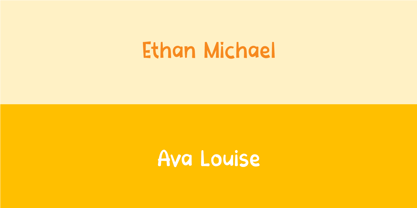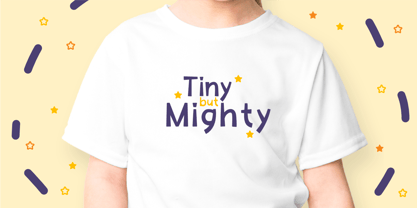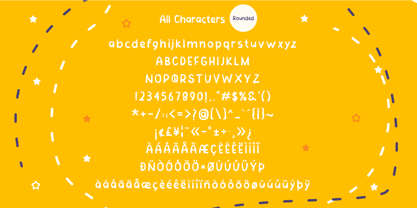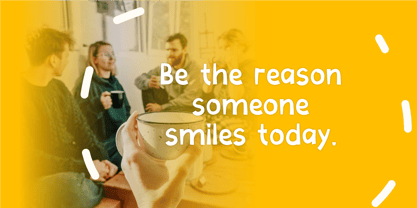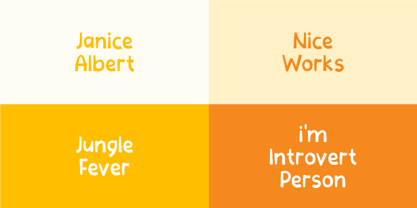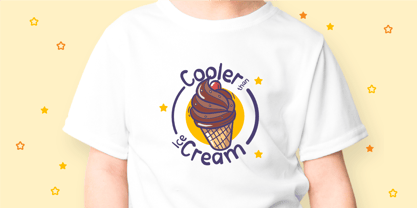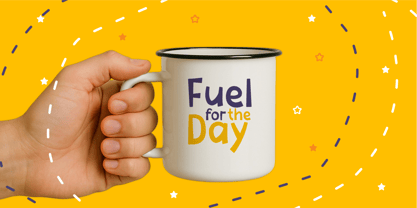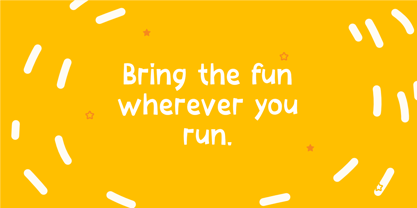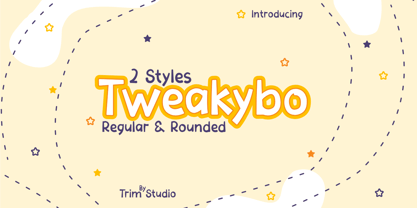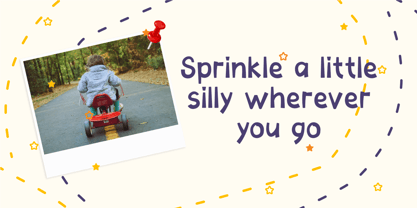
Tweakybo
by Trim Studio
The Tweakybo Font Family was designed by Deri Kurnia and published by Trim Studio. Tweakybo contains 4 styles and family package options. More about this family
Tweakybo is a cheerful and imperfect font with a lively, hand-drawn style. Each letter dances slightly off-balance, giving designs a spontaneous, approachable, and creative vibe. Ideal for posters, children’s books, crafts, and anything that needs a personal, joyful touch.